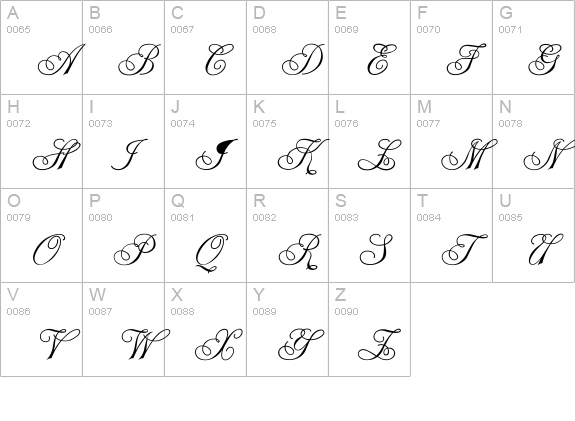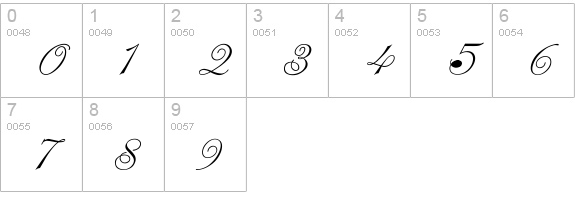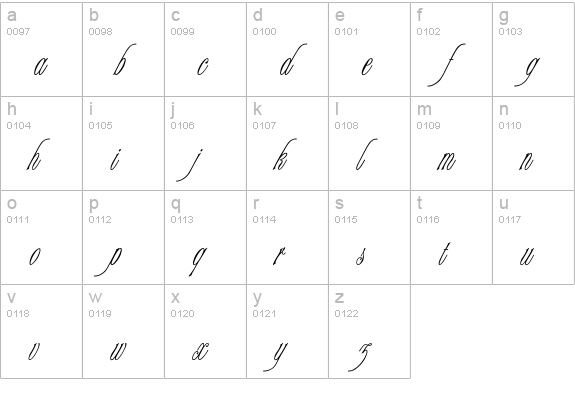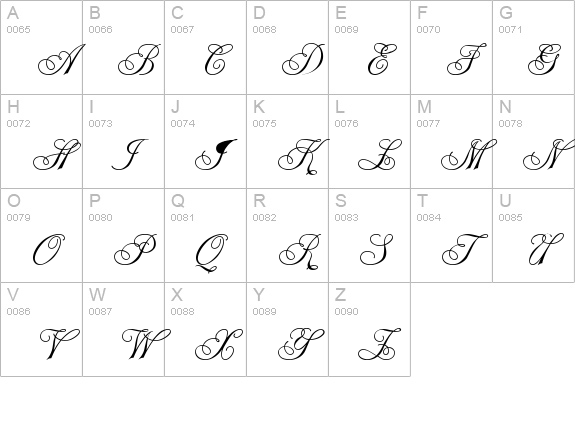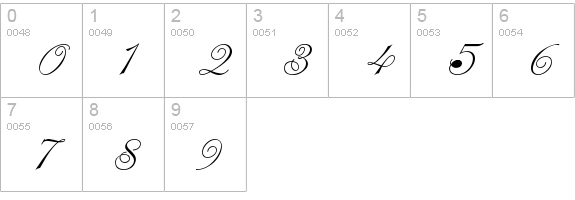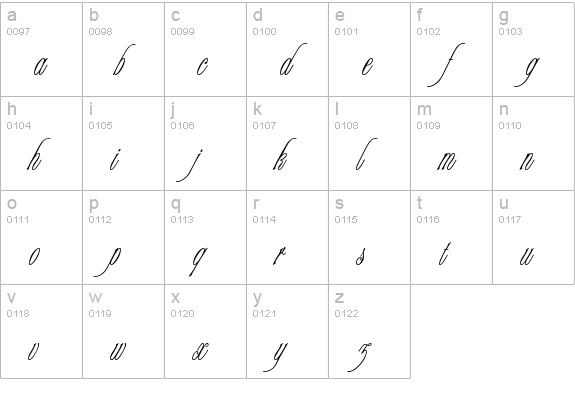
Campaign-Normal Font Details
Campaign-Normal is the standard, neutral variant in the Campaign typeface family \xE2\x80\x94 well suited to general body text, paragraphs, and standard typographic work.
Campaign-Normal font is a versatile and modern typeface that is perfect for a wide range of design projects. Its clean lines and classic styling make it a great choice for both print and digital applications. Whether you're working on a poster, website, or branding project, Campaign-Normal font will bring a touch of sophistication to your work. What's even better is that Campaign-Normal font is available for free download at FontsMarket.com! This means you can start using this stylish font in your projects right away without any cost. Don't miss out on the opportunity to enhance your designs with the elegance of Campaign-Normal font. Download it today and see the difference it can make in your work.